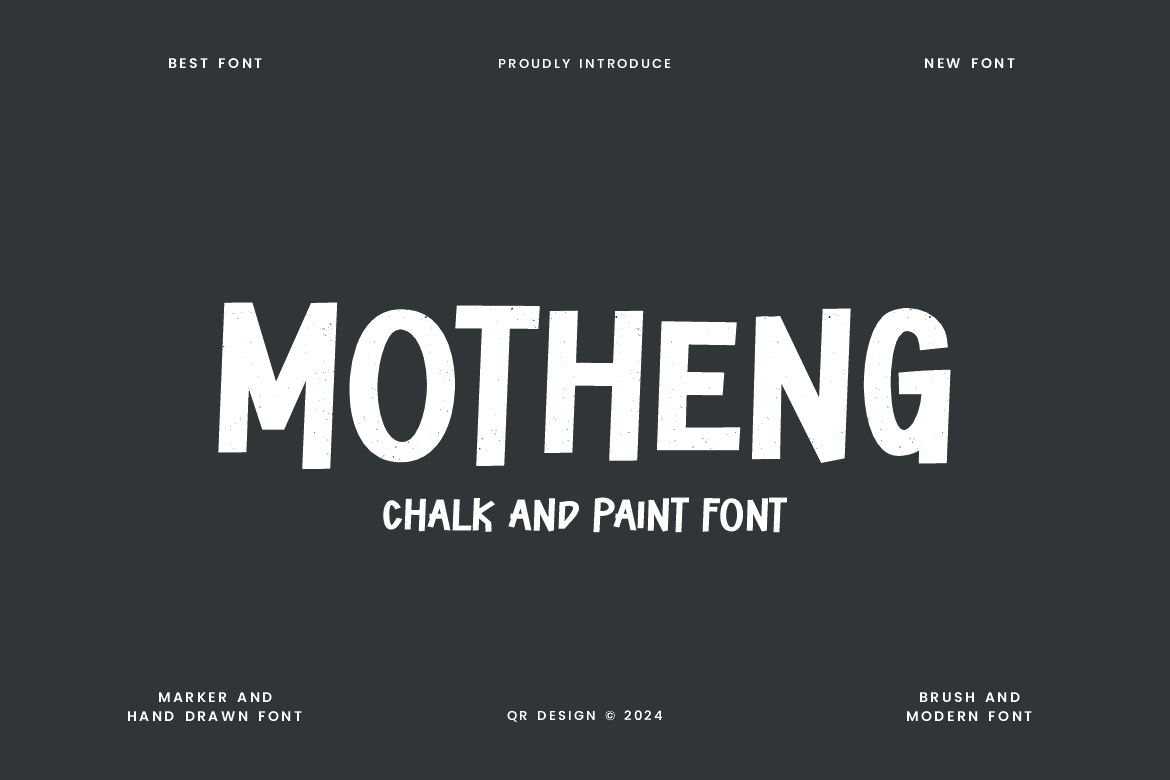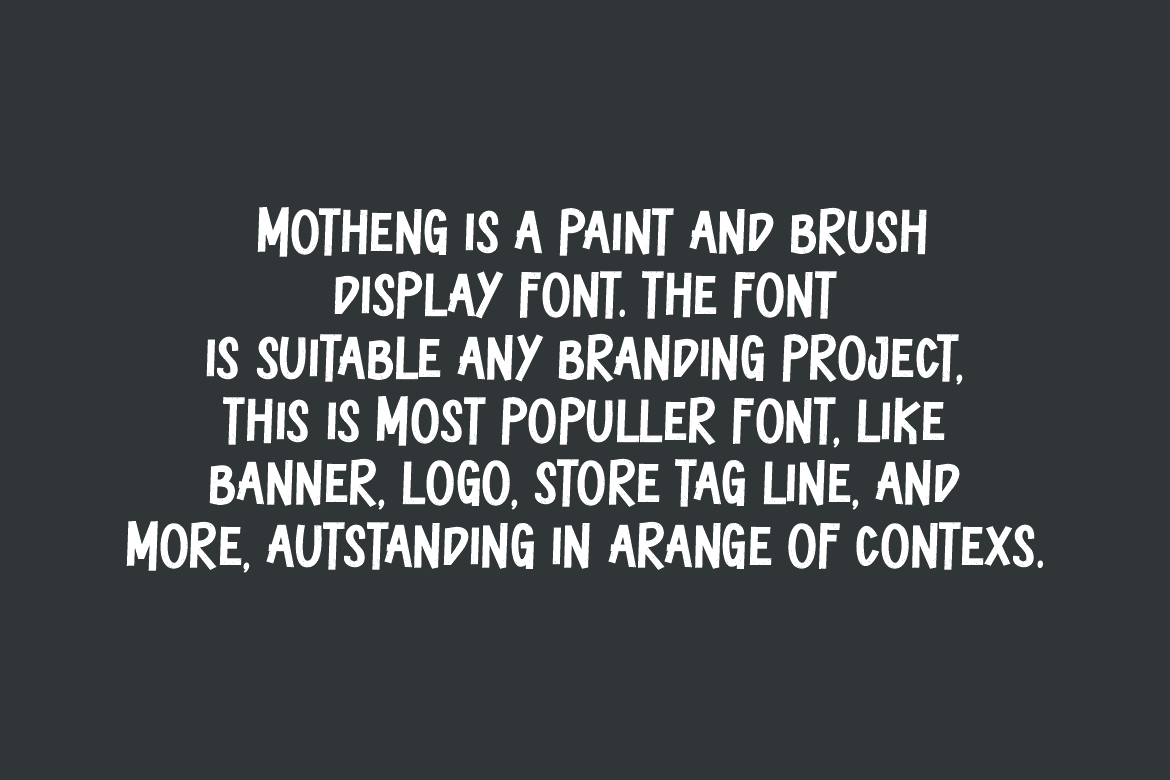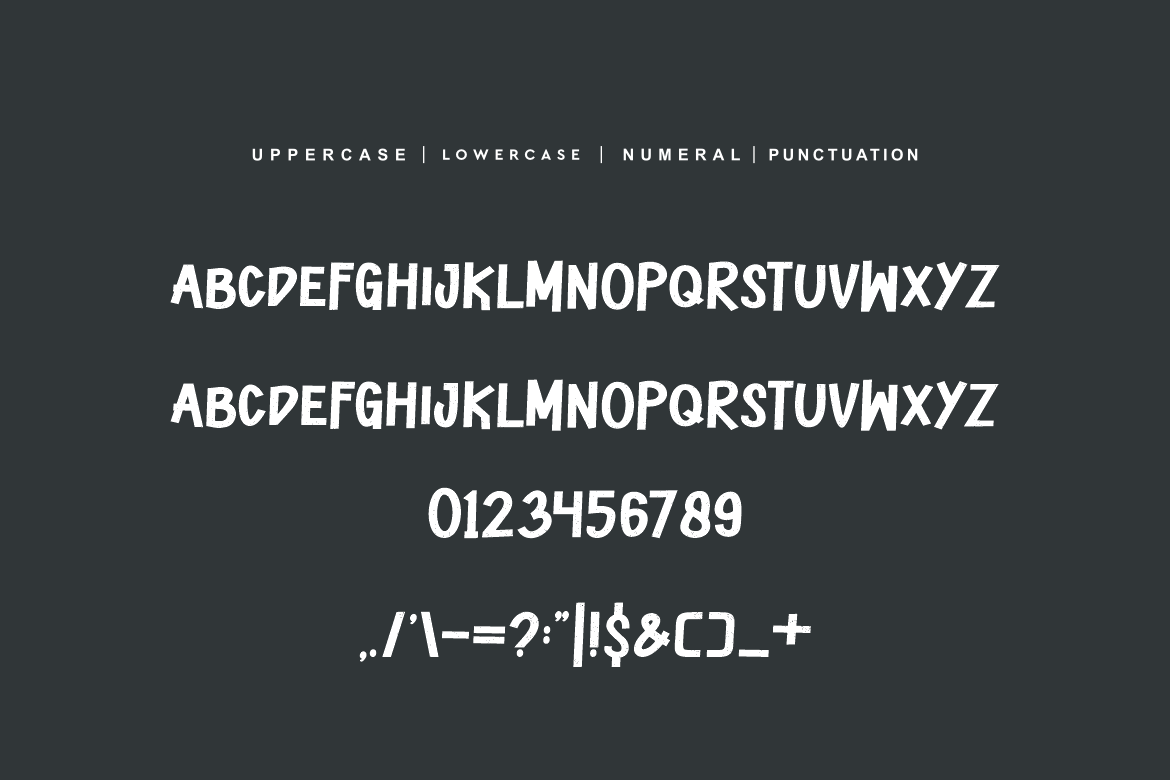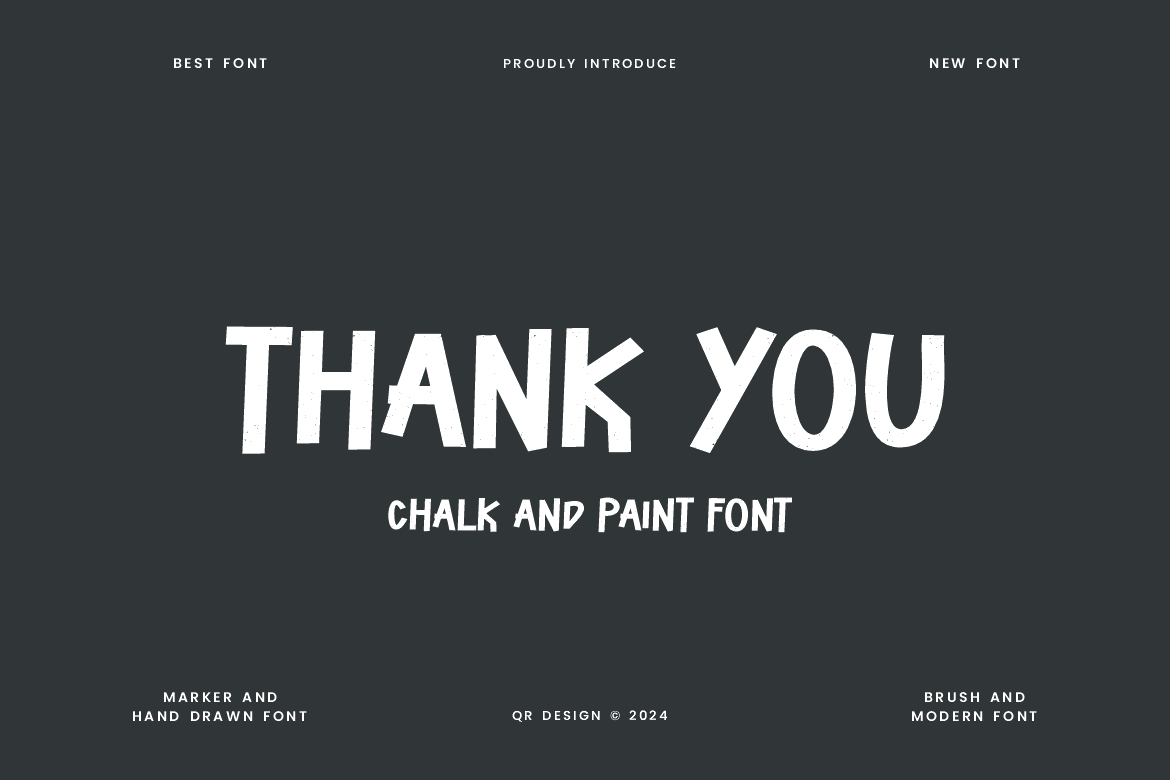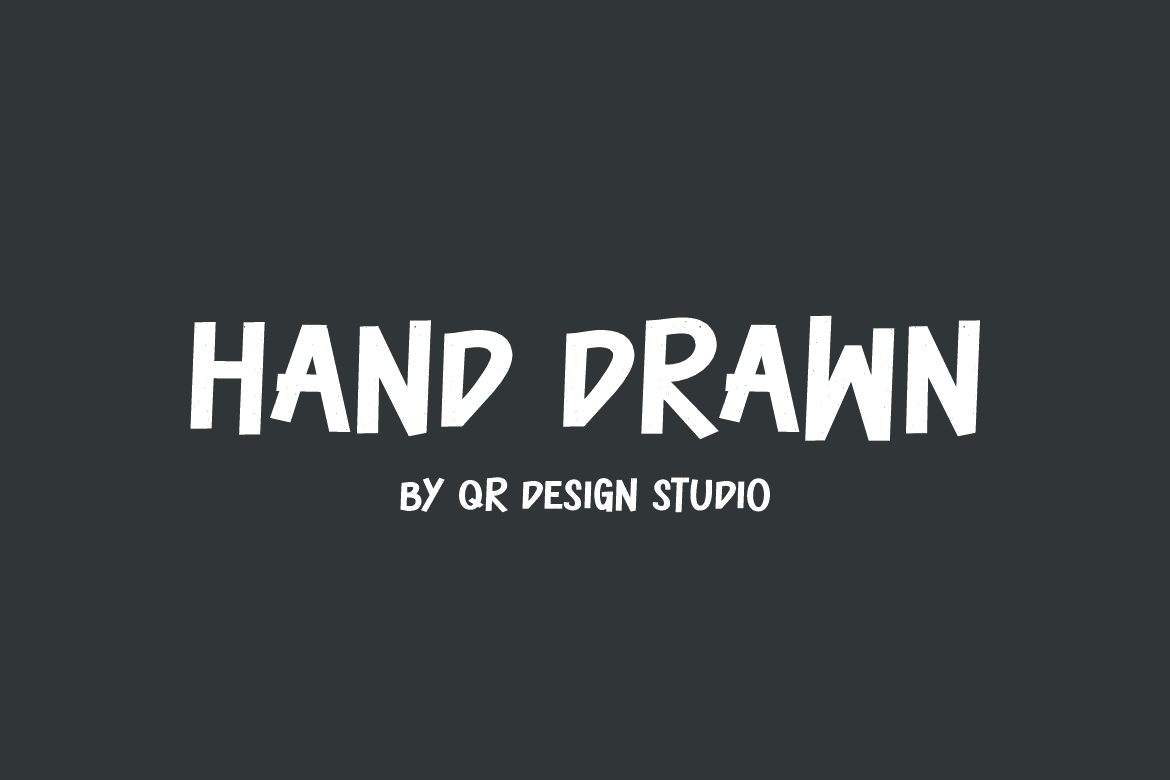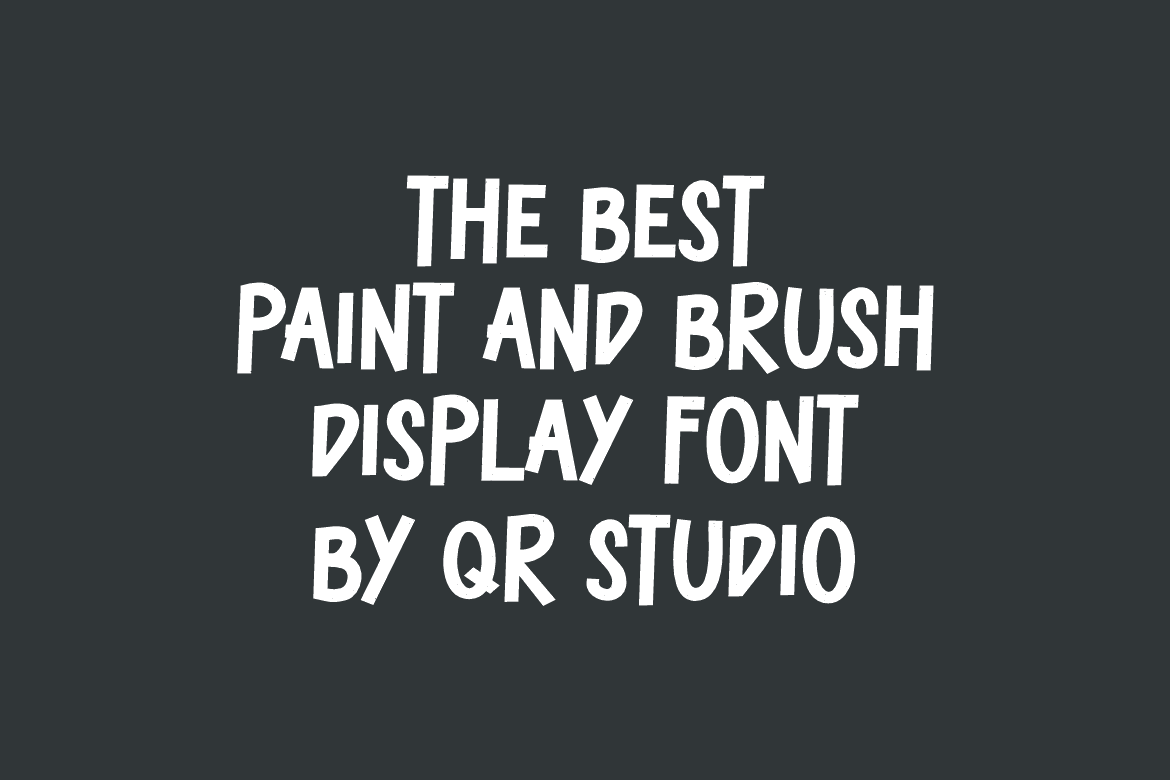
**Motheng Font** is a modern and authentic display font.
The font is suitable for any branding project like poster, logo, sport, and many more.
Outstanding in a wide range of contexts.